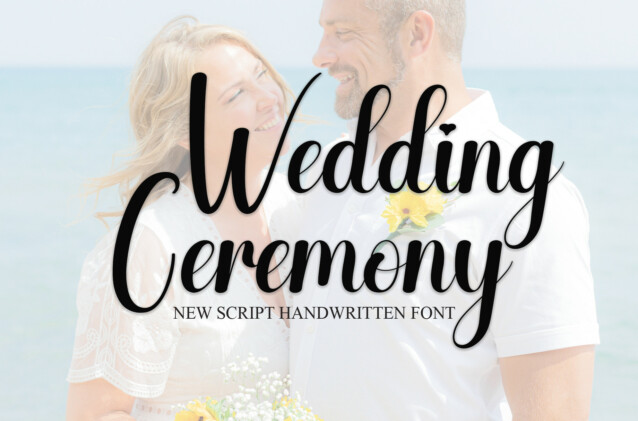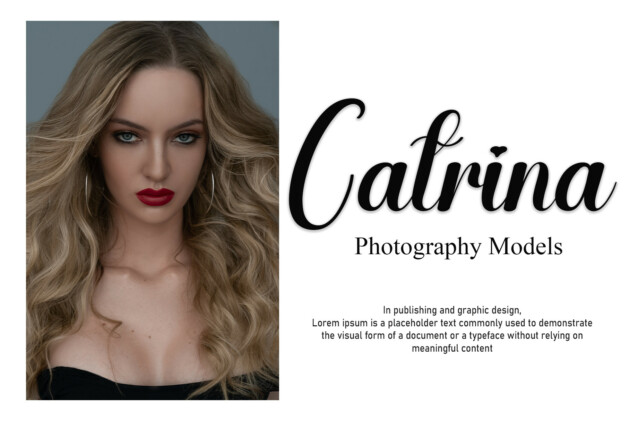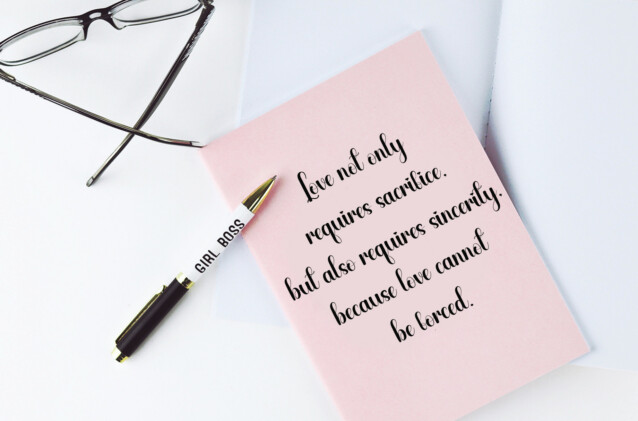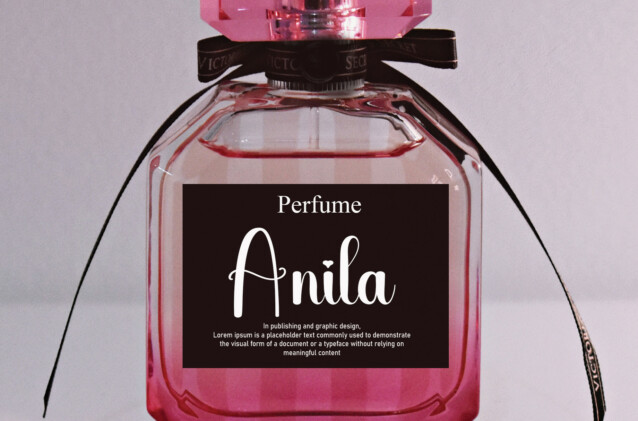
Wedding Ceremony Script Font is a sweet and friendly handwritten display font. Cute and fun, this font is ideal for writing wedding invitations, cards, or any other design that might need a playful touch!